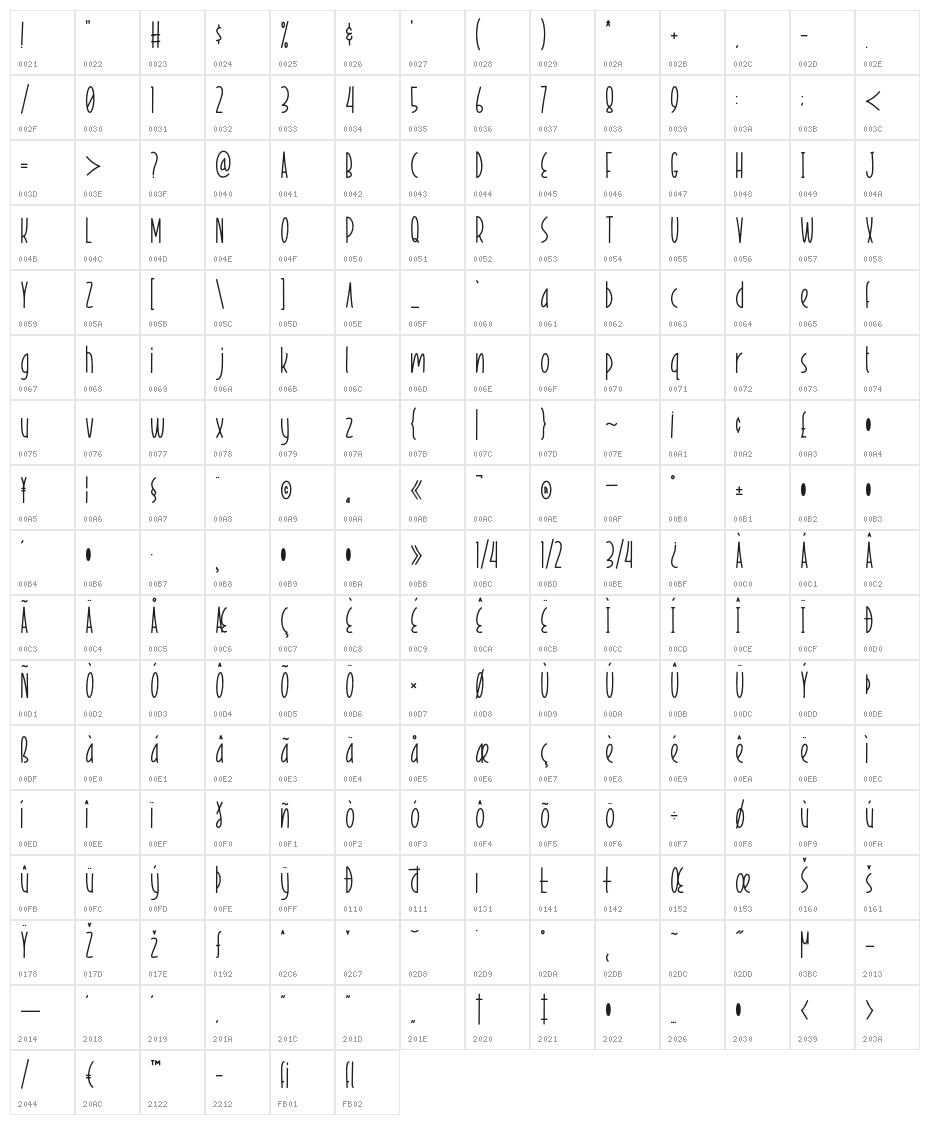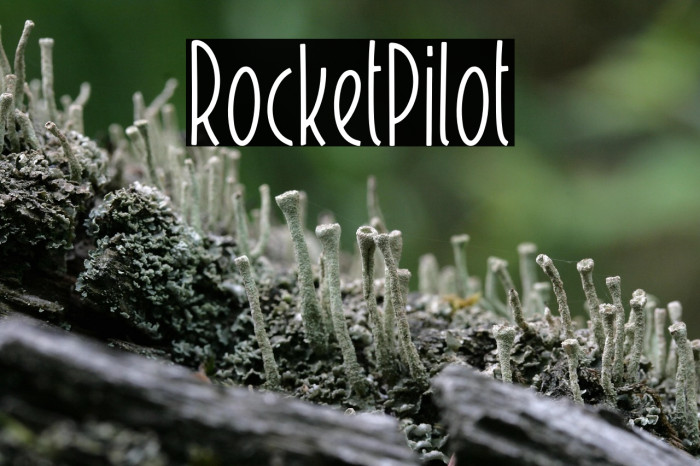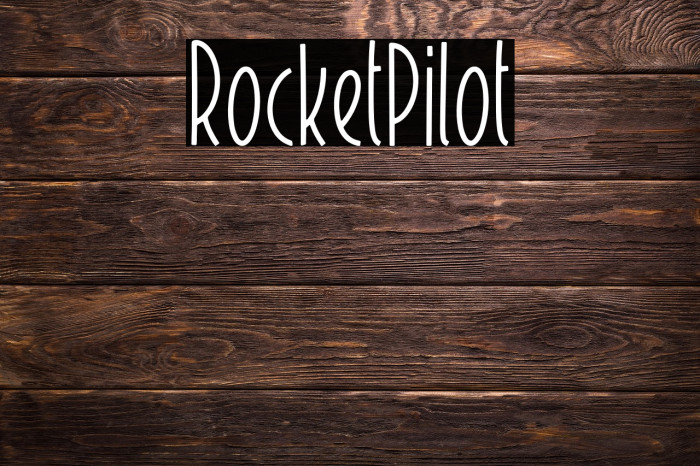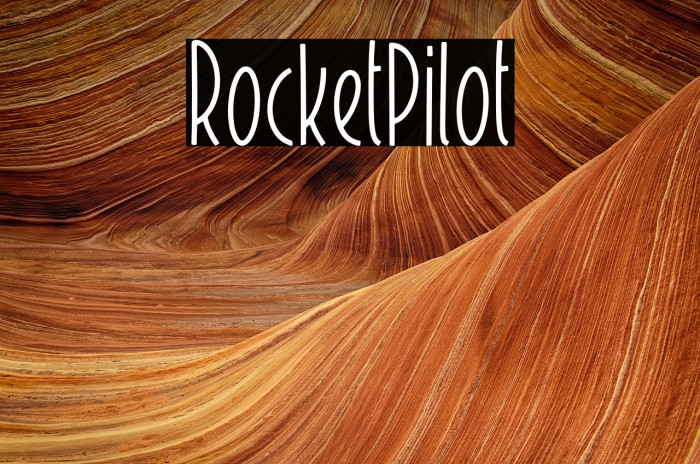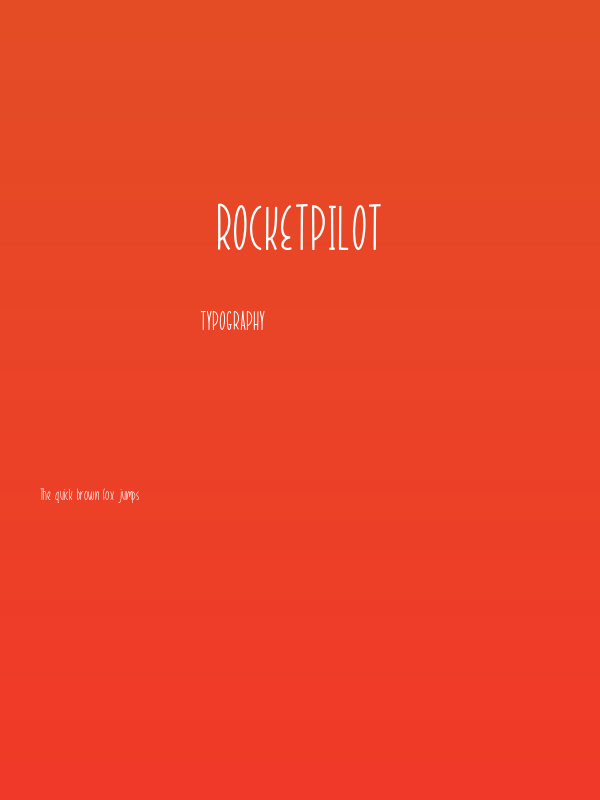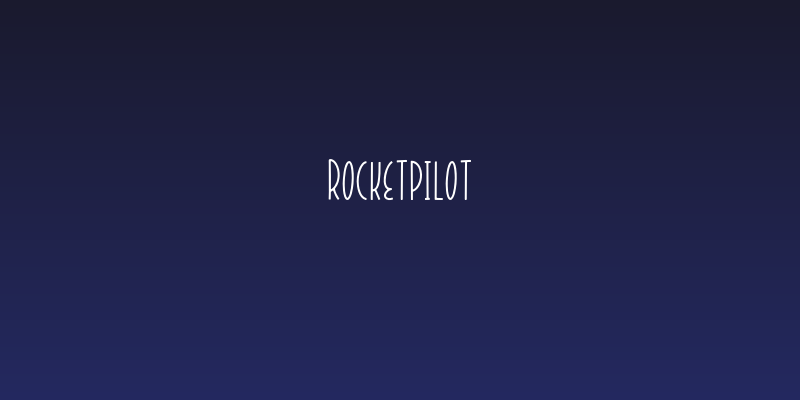
RocketPilot Font
RocketPilot Description
This font features a playful and whimsical design with tall, narrow characters that have a hand-drawn appearance. The strokes are consistent in width, giving it a clean and modern look. The uppercase and lowercase letters maintain a uniform height, contributing to its cohesive style. The numbers and special characters are designed to match the overall aesthetic, making it versatile for various uses. Its unique charm is suitable for projects that require a touch of creativity and fun.
| Width | Condensed |
| Overall Style | Playful |
| Proposed Projects | Ideal for children's books, creative posters, playful branding, and greeting cards. |